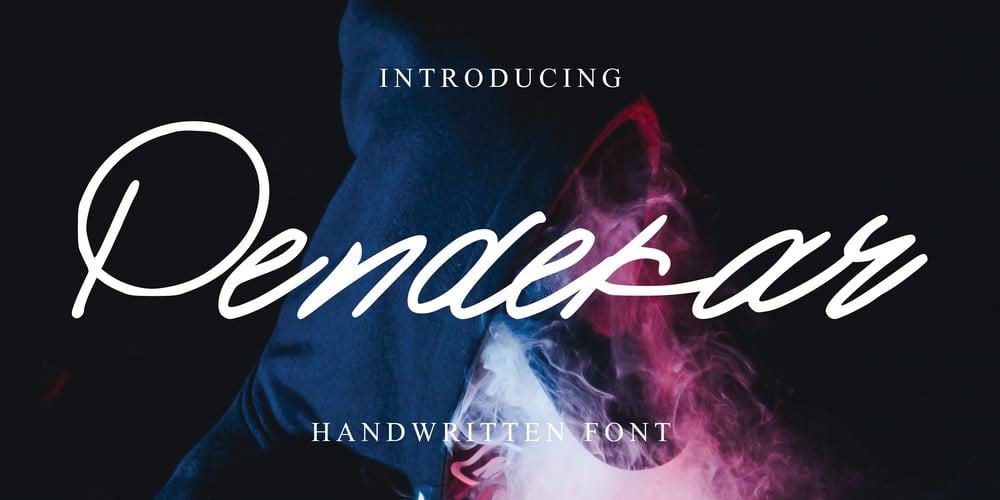
Pendekar
Pendekar font
Pendekar Font Family was designed by Mariyana and published by Goodigital13. Pendekar contains 1 styles and family package options. This font is perfect for fashion brand, apparel, shoes company, business card, logo brand, clothing, and also business brand name like Coffeshop or Bakery.elegant and classic handwritten font. Whether you’re looking for fonts for Instagram or calligraphy scripts for DIY projects, Deventer will turn any creative idea into a true piece of art!